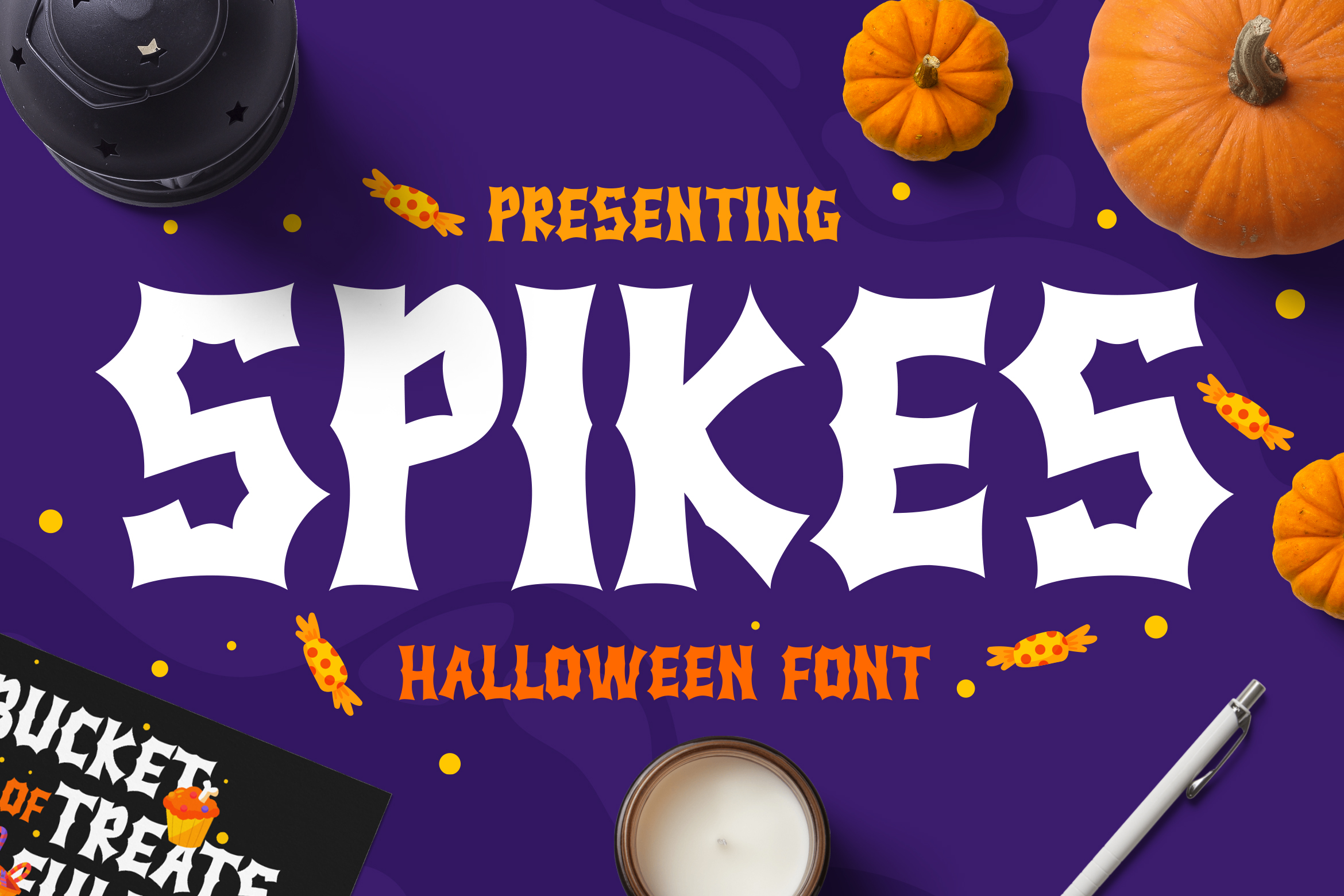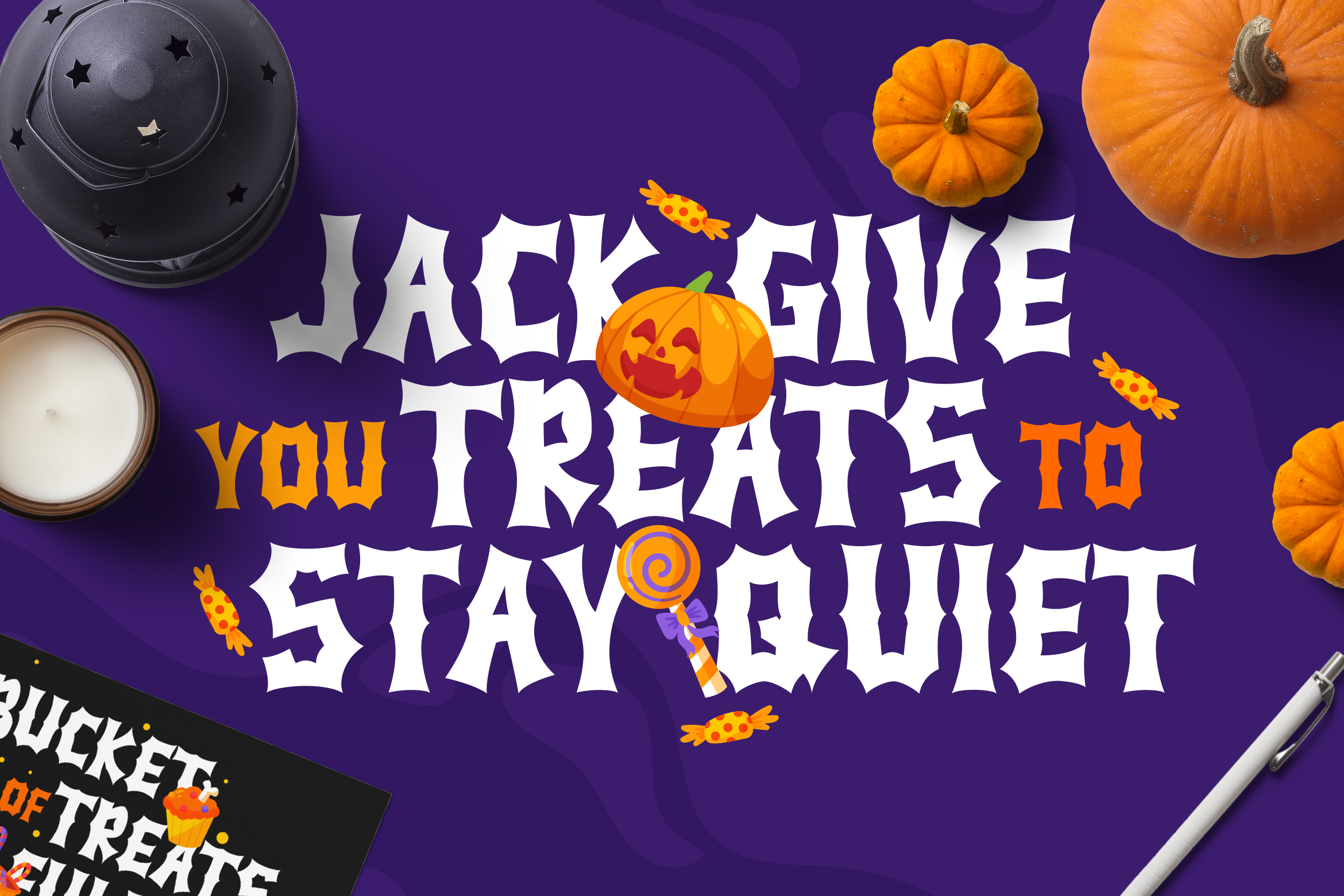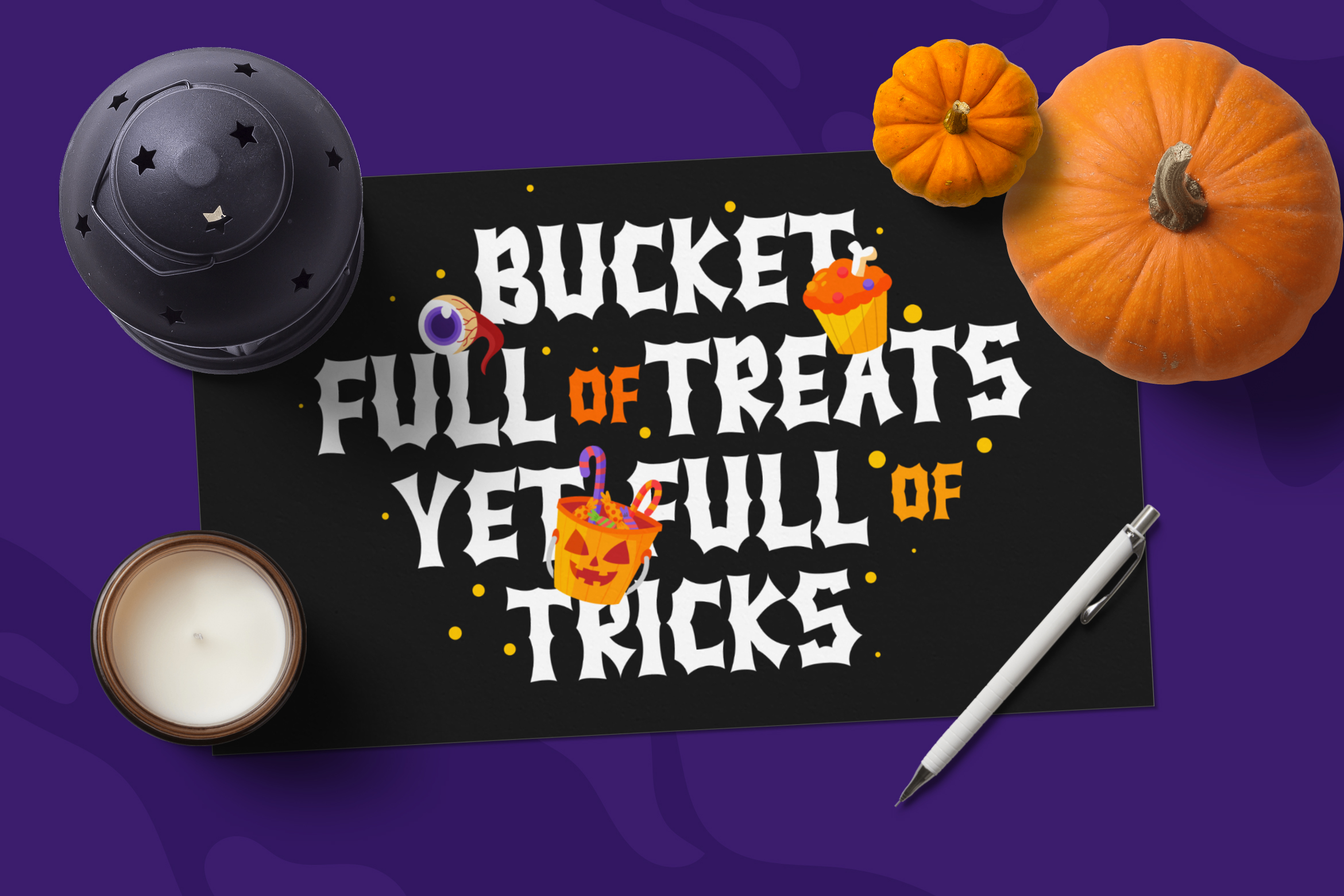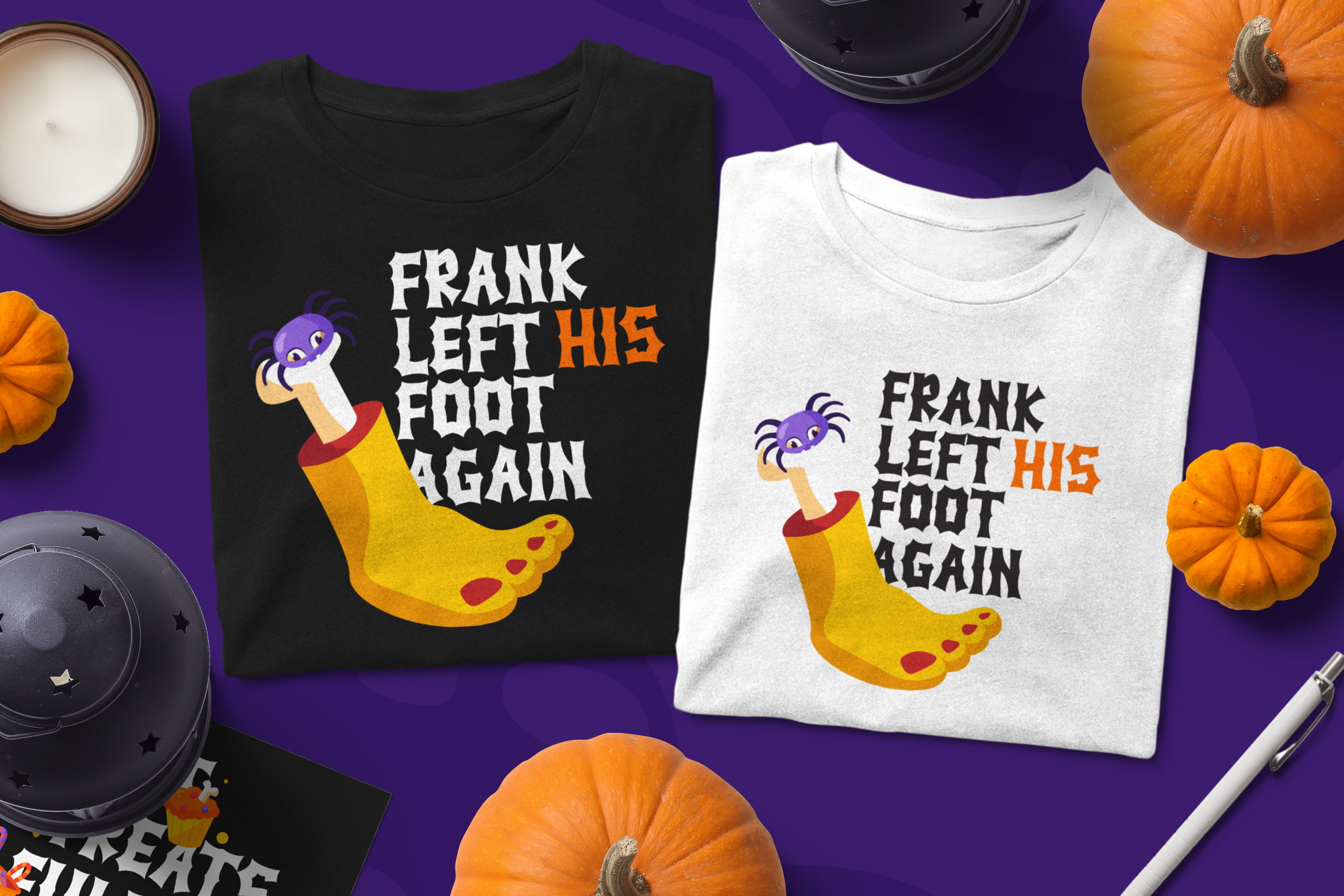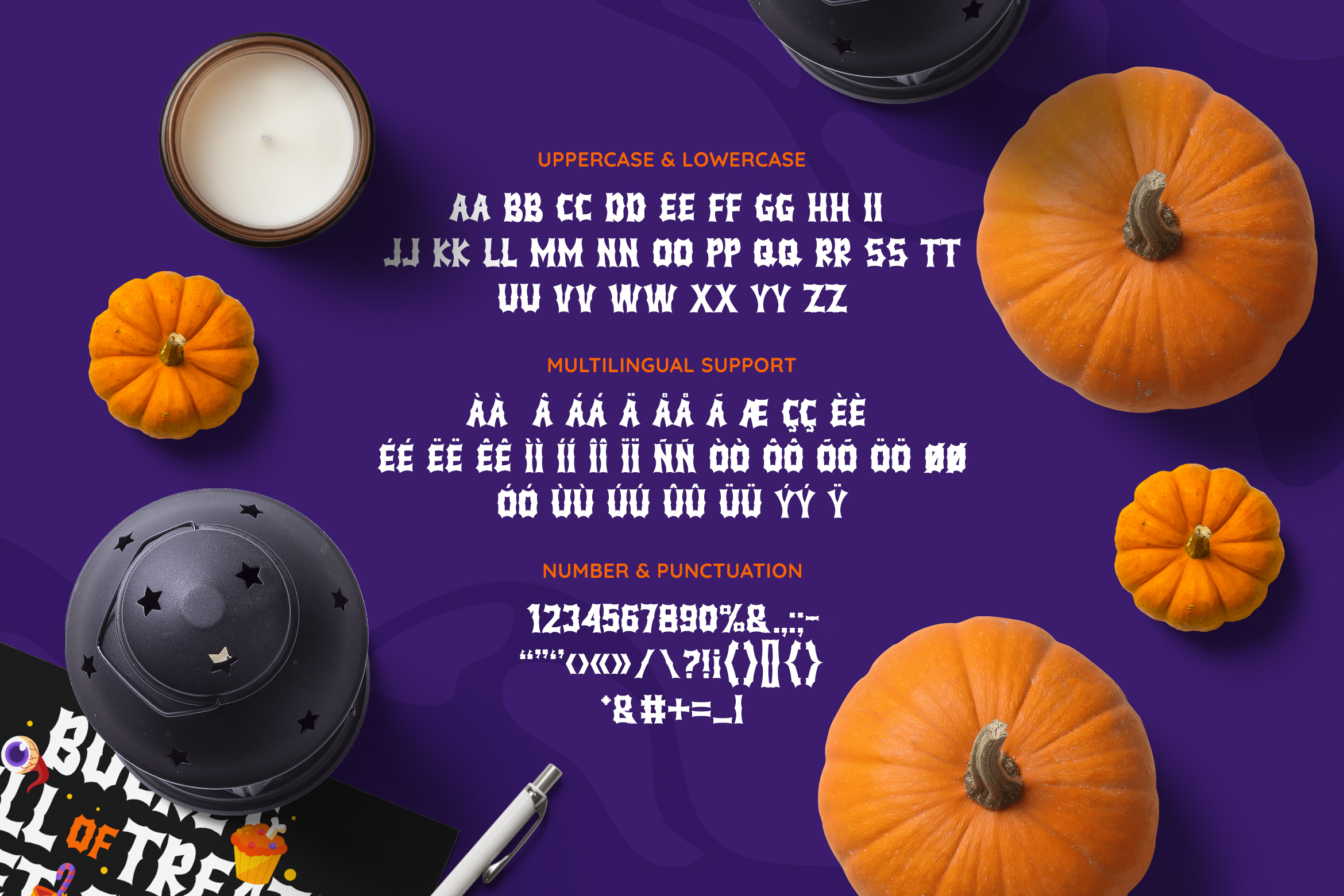
Spikes is a bold and eye-catching Halloween font with spiky gothic-inspired shapes and playful curves that perfectly embody the spirit of spooky fun. With its sharp, exaggerated forms and haunting aesthetic, Spikes is made for Halloween designs that demand attention. From party flyers and merchandise to social media posts, candy packaging, and eerie illustrations.
This font features uppercase and lowercase letters, multilingual support, numbers, punctuation, and sharp-edged alternates that bring drama and attitude to any project. Whether you’re crafting ghoulish graphics or playful trick-or-treat prints, Spikes adds a perfect mix of fright and delight to your seasonal creations.
Spikes